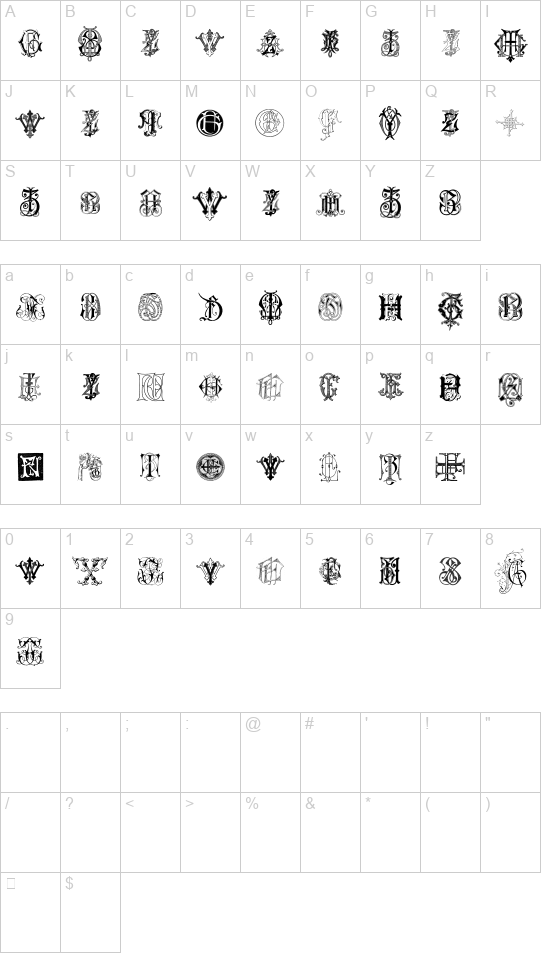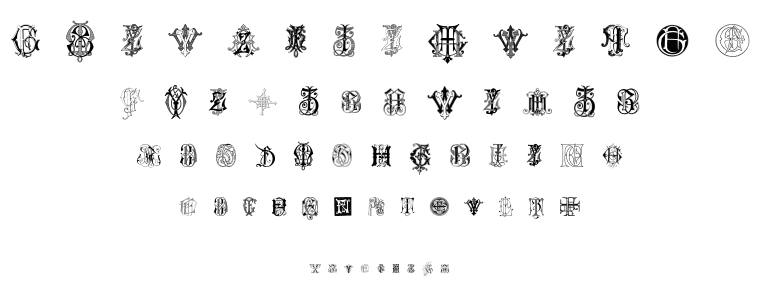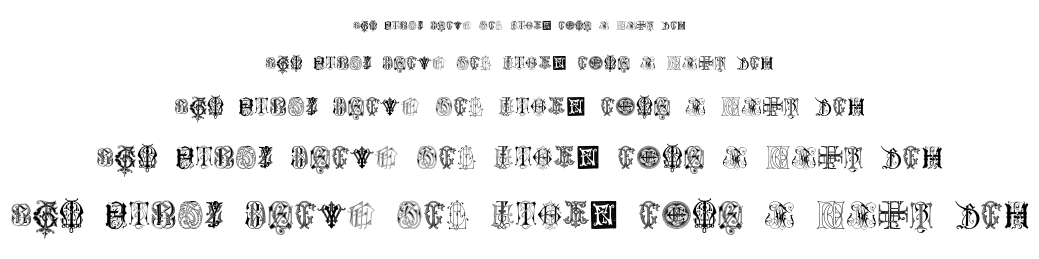
Intellecta Monograms Random Samples Seven, by Intellecta Design
Intellecta Monograms Random Seven is a random and limited set version of Intellecta Monograms, an extensive collection of fonts ammouting thousands of intrincated and vintage monograms, mainly in Victorian style, a Intellecta’s best-seller over the last five years. To purchase the original fonts (alphabetical order of sets) and commercial licences, please, visit: